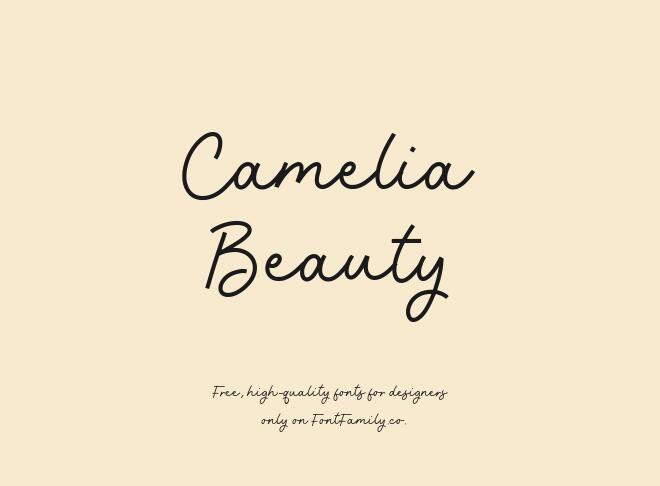
Camelia Beauty Font
Camelia Beauty Font is an elegant handwritten script font designed by The Creative Land. With its flowing letterforms and decorative charm, it brings a touch of sophistication to any design project. Whether you're working on wedding invitations, branding, or social media graphics, Camelia Beauty Font will add a luxury feel to your work. Its style is reminiscent of classic calligraphy, but with a modern twist, making it a versatile choice for designers. The font is particularly suitable for those seeking a delicate, feminine touch in their designs. With its beautiful curves and refined style, Camelia Beauty Font stands out from other fonts, making it a great choice for any project that requires an elegant and polished appearance.